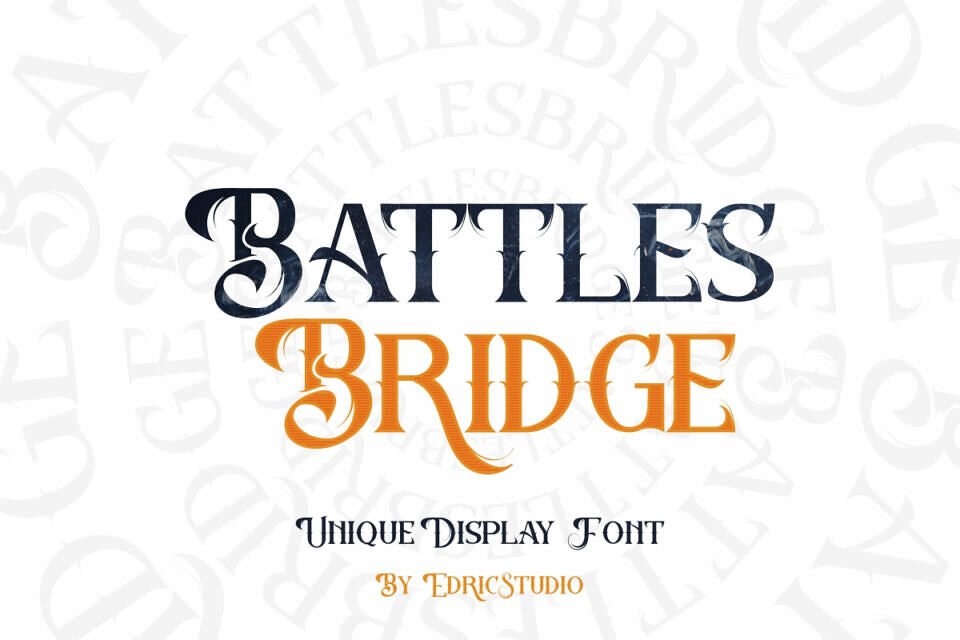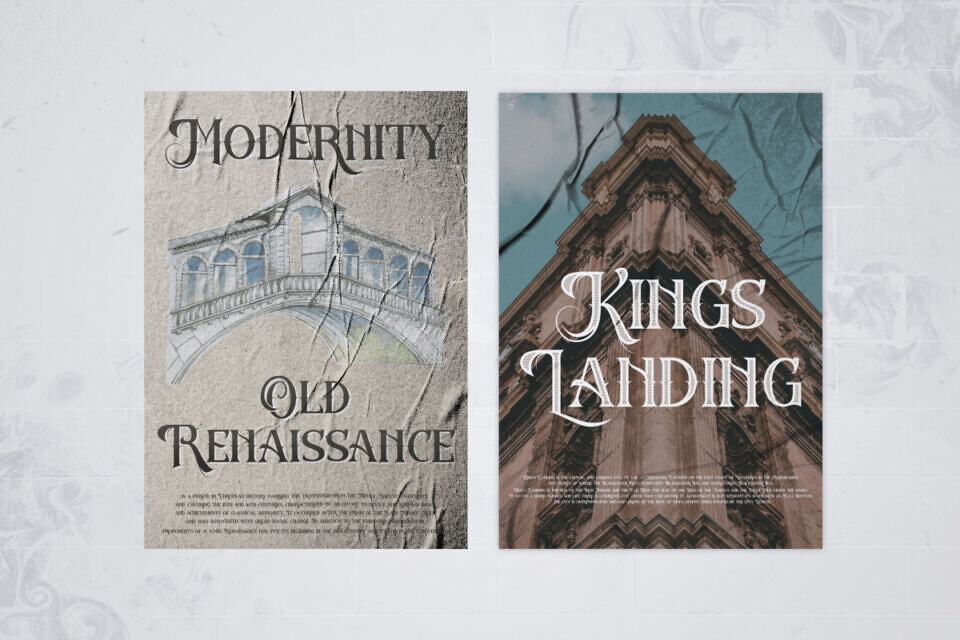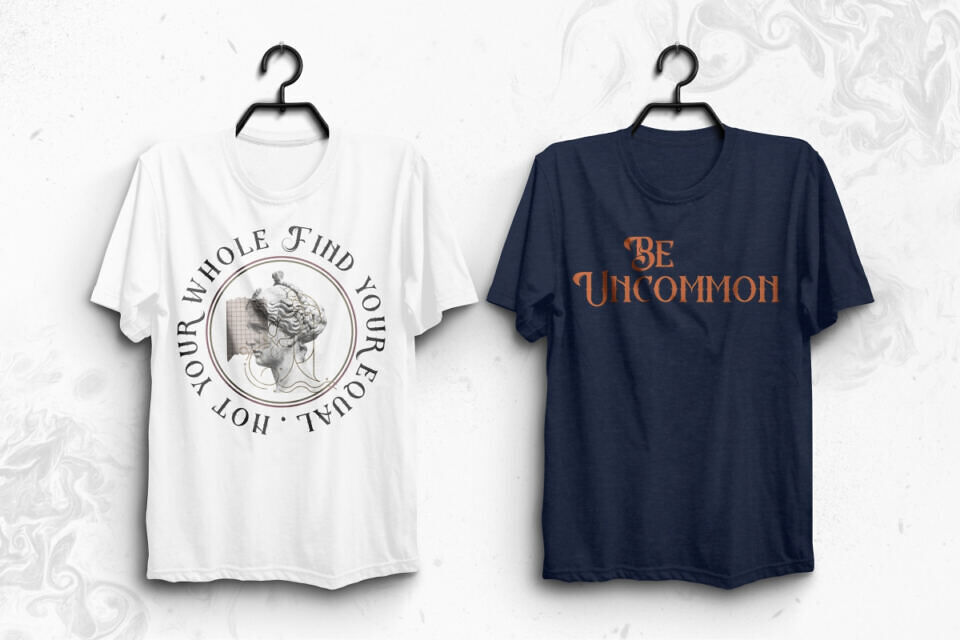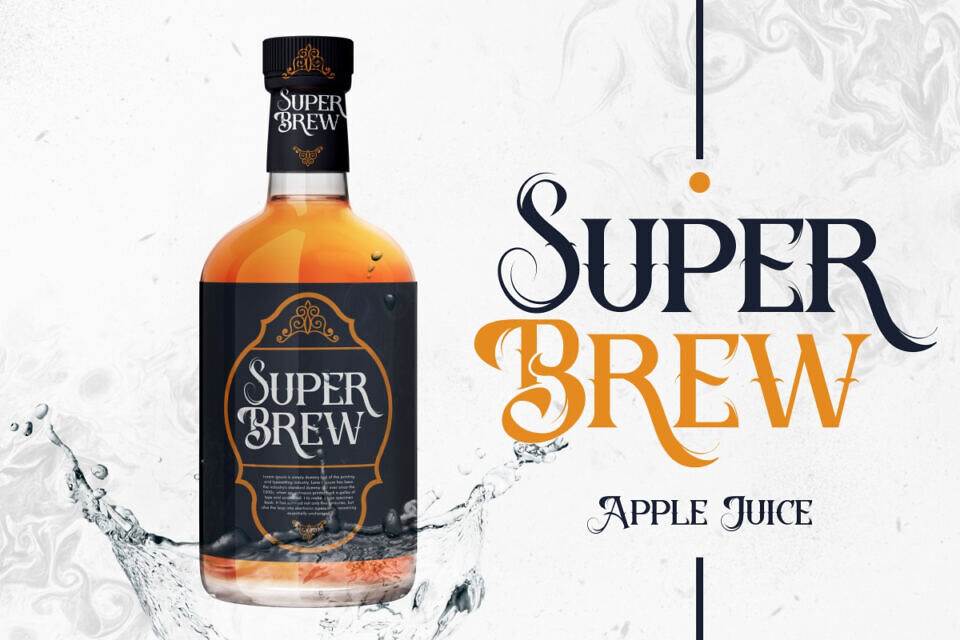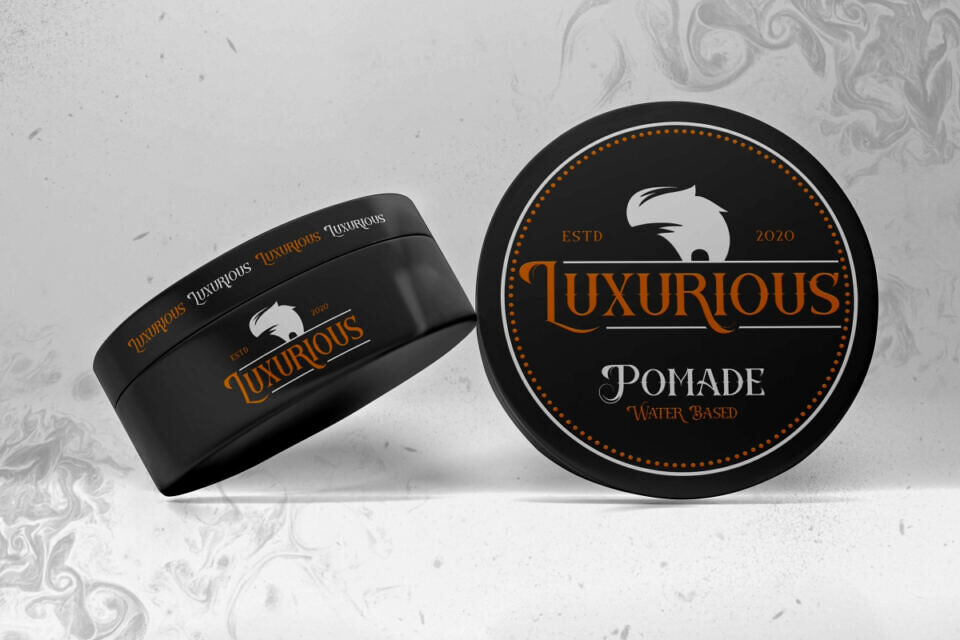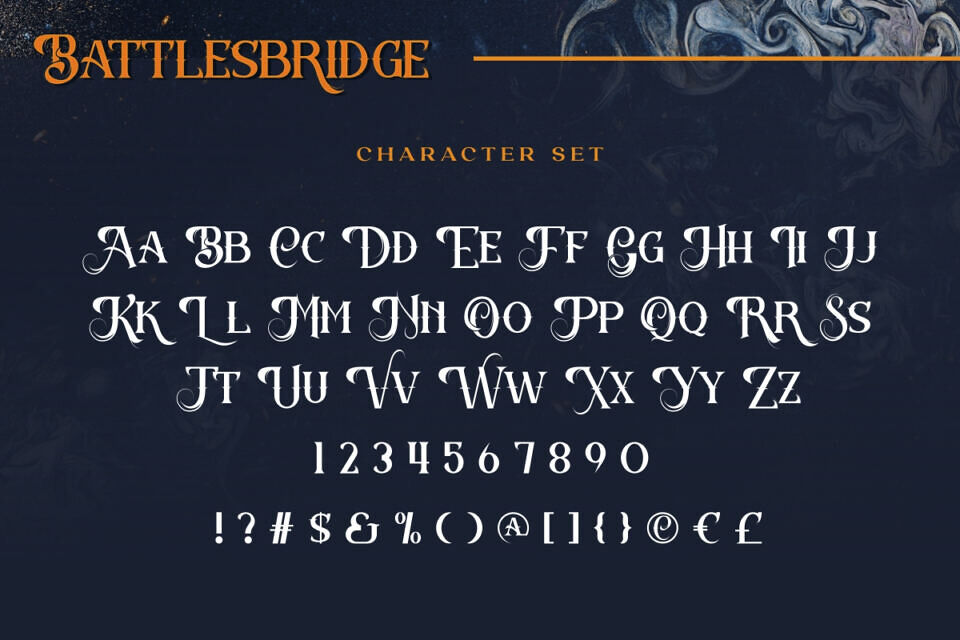
Battlesbridge Font
Battlesbridge is a decorative serif font with bold, heavy strokes and distinctive curved details that give it a dramatic, slightly eerie character. Its stylized letterforms feature sharp edges and playful twists, making it highly eye-catching in large sizes.
Ideal for headlines, posters, and themed designs, it works especially well for vintage, gothic, or Halloween-inspired visuals where a strong and unique typographic presence is needed.